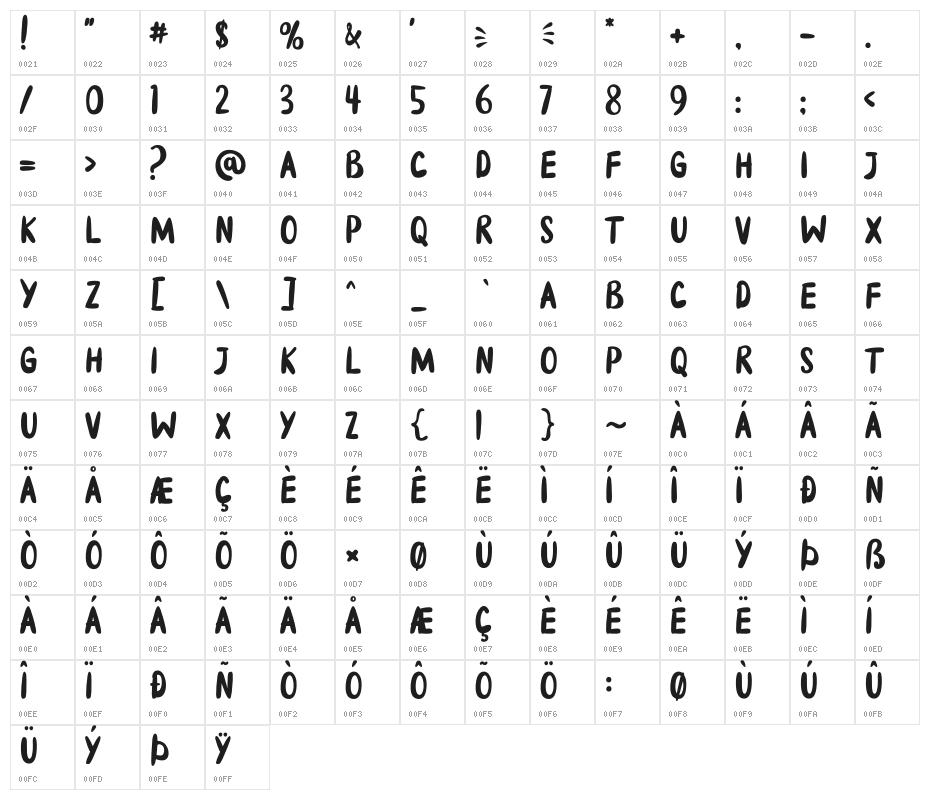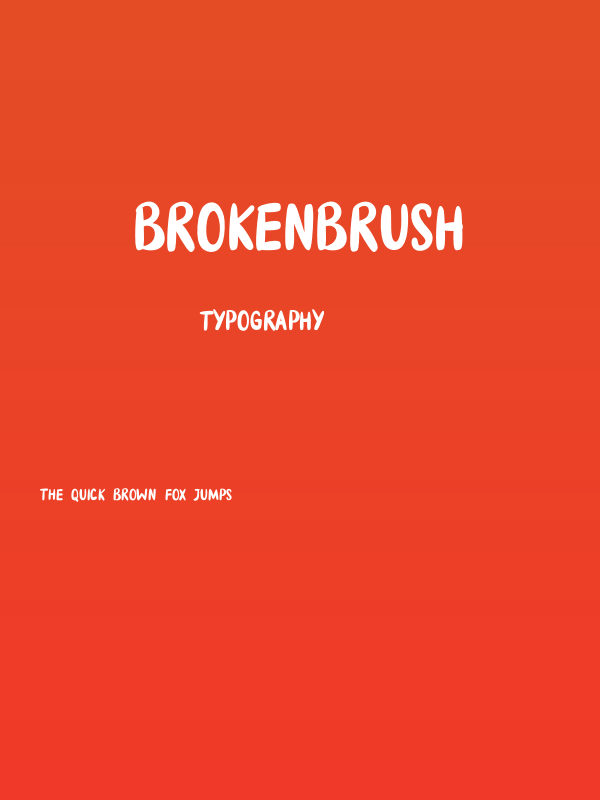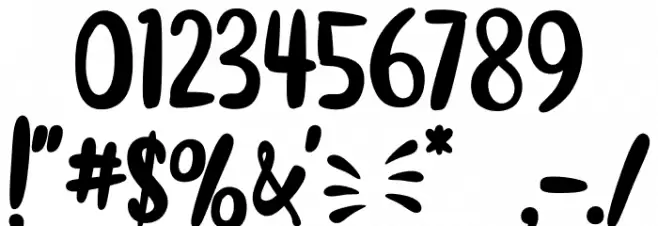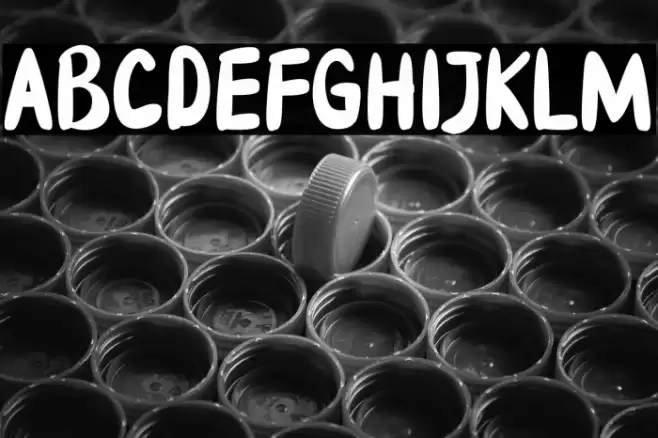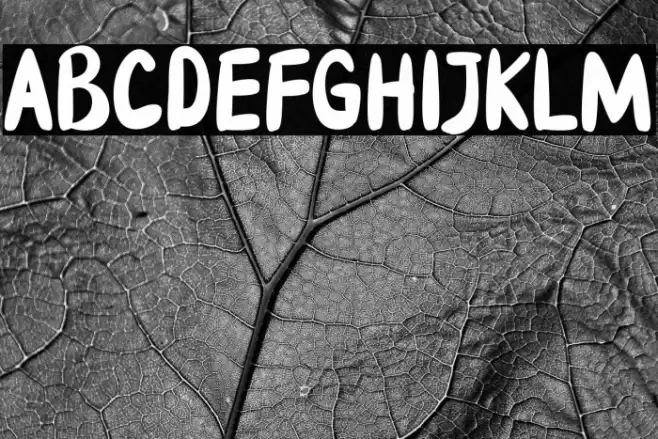
Brokenbrush Font
Brokenbrush Description
This font features a bold, brush-like appearance with a playful and energetic style. The characters are rounded and slightly irregular, giving them a hand-drawn feel. The uppercase and lowercase letters maintain a consistent weight, contributing to a cohesive look. The numbers and special characters are designed with the same brushstroke effect, ensuring uniformity across all elements. The font's informal and dynamic nature makes it suitable for projects that require a personal touch or a creative flair.
BROKENBRUSH UPPERCASE
BROKENBRUSH LOWERCASE
BROKENBRUSH OTHER CHARS
| Proposed Projects | Ideal for posters, invitations, greeting cards, and branding projects that require a lively and informal touch. |